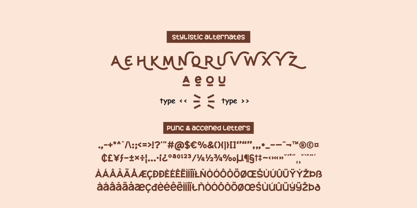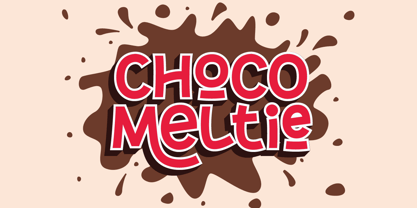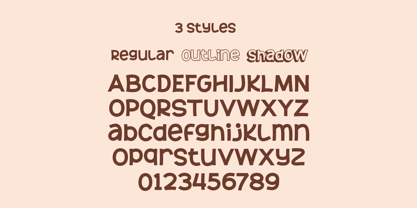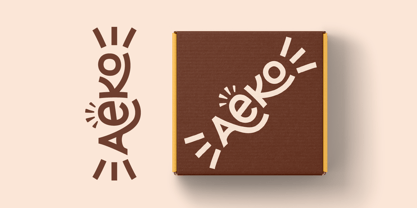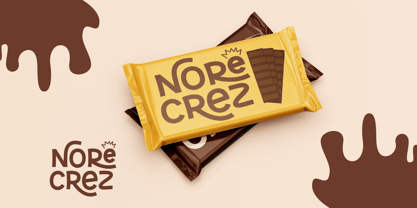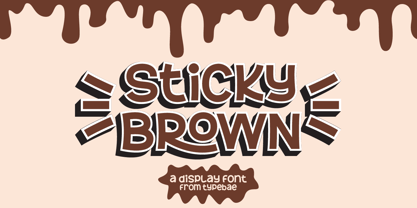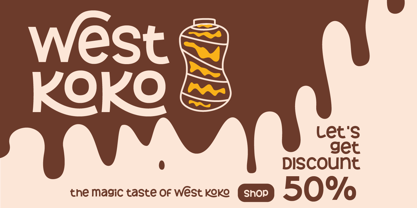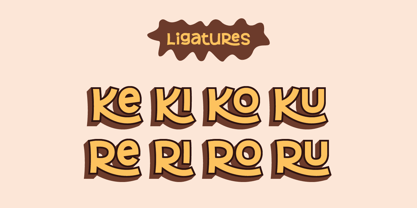
Sticky Brown
Die Schriftfamilie Sticky Brown wurde von Iqbal Pauji entworfen und von Typebae veröffentlicht. Sticky Brown enthält 3 Stile und Familienpaketoptionen. Mehr über diese Familie
Sticky Brown is a bold and bouncy display font with a playful attitude. It comes in three styles, regular, outline, and shadow. You can layer them together or use them separately for a fun, eye-catching look. This font includes creative ligatures that add personality and flair. Each letter is designed to feel handmade, chunky, and fun. It is perfect for kids branding, snack packaging, posters, logos, and cheerful social media content.